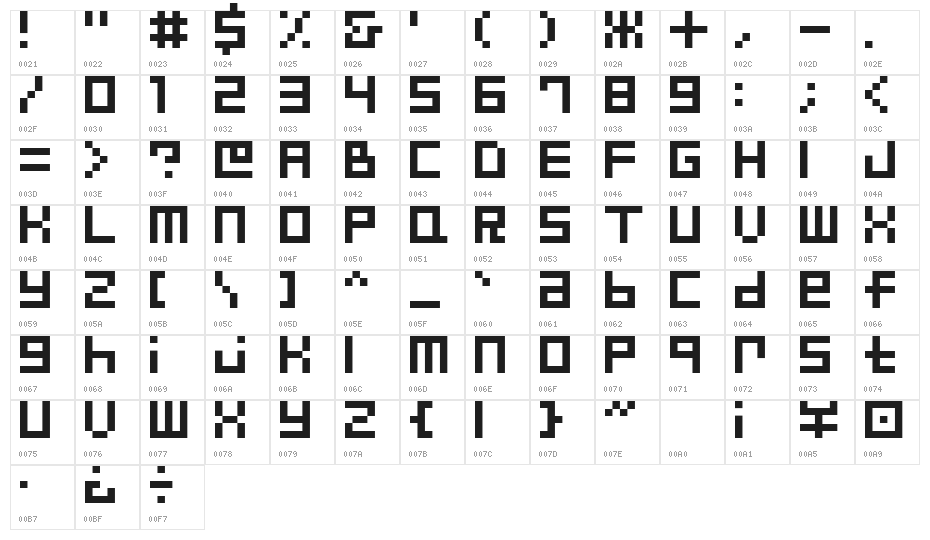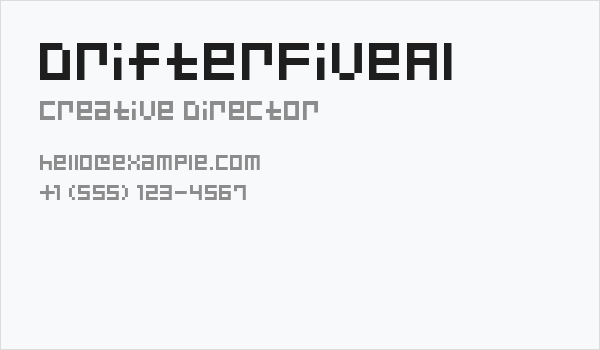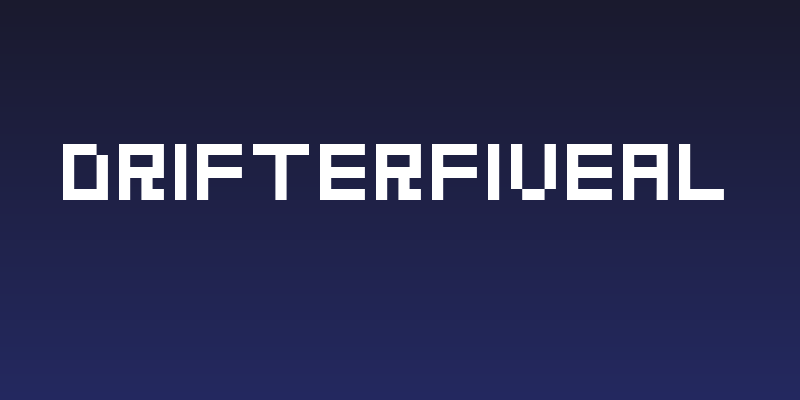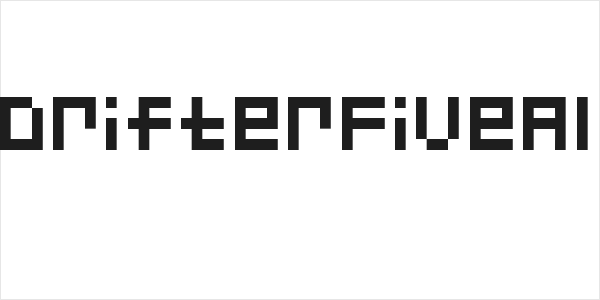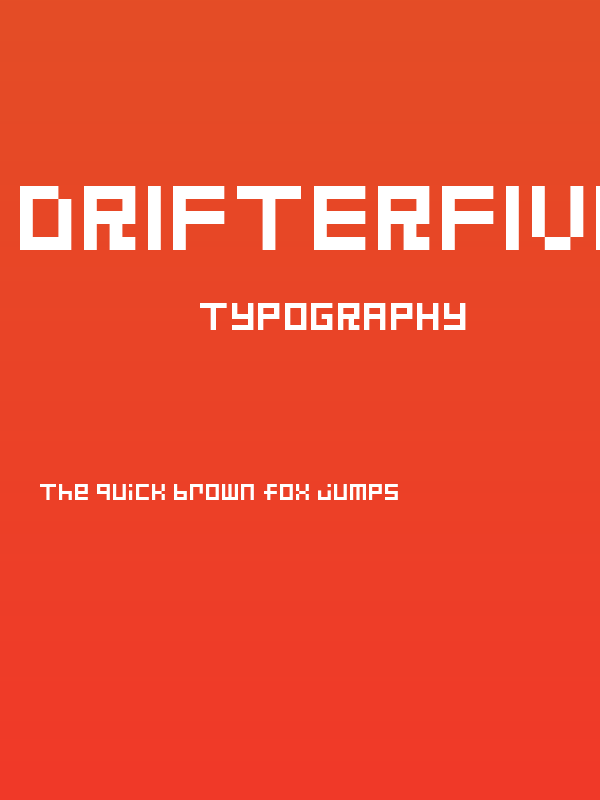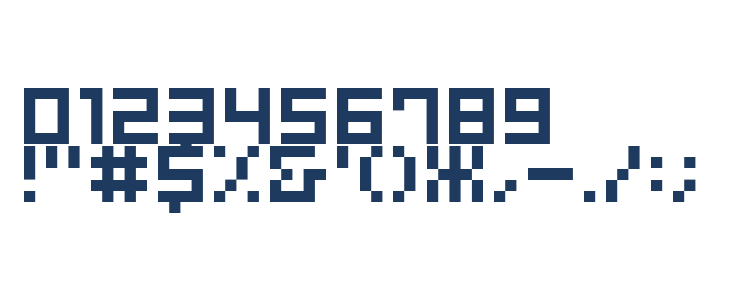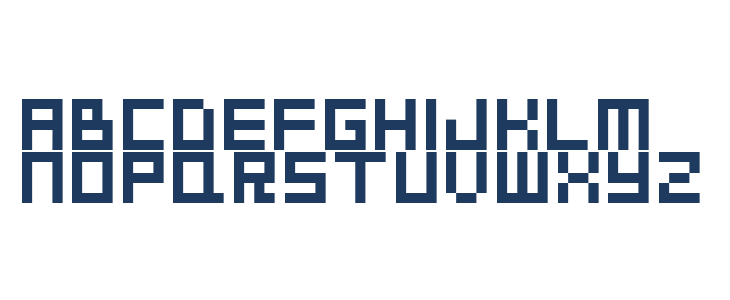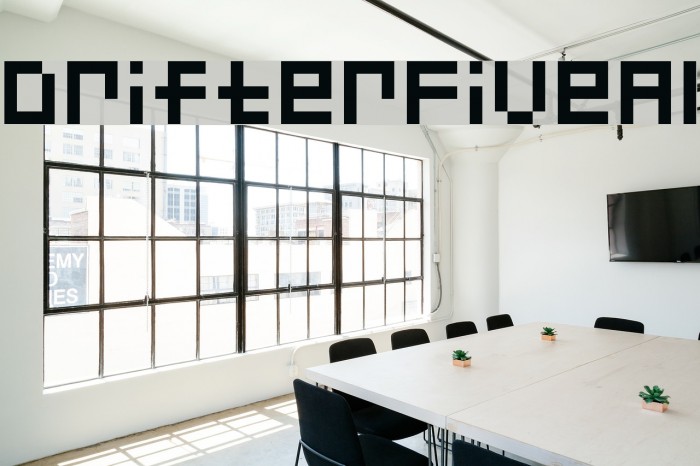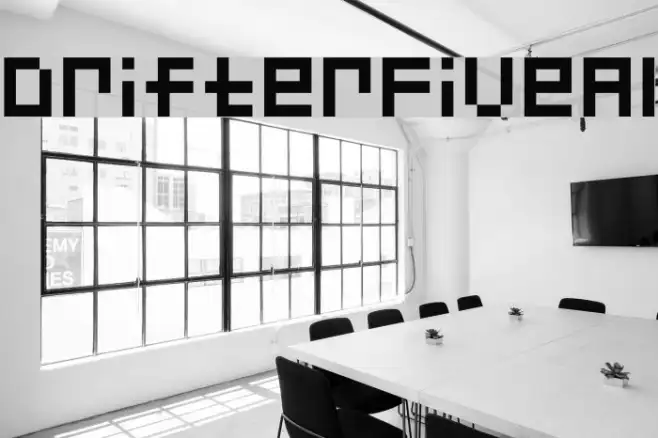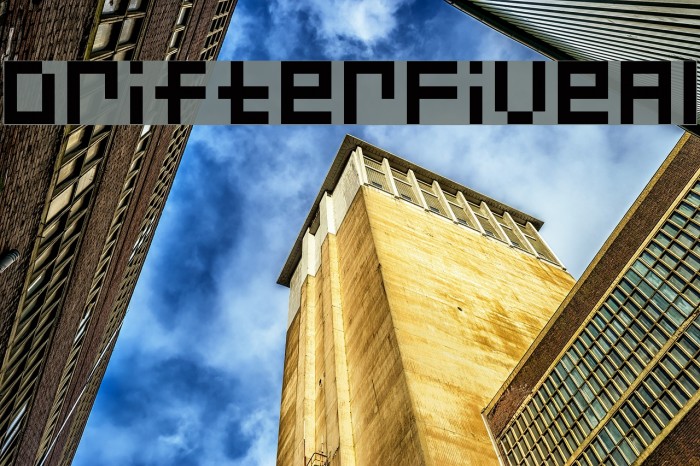
DrifterFiveAl Font
DrifterFiveAl Description
This font features a bold, geometric design with a distinctly digital and futuristic aesthetic. Each character is constructed with sharp, angular lines and uniform stroke widths, creating a cohesive and structured appearance. The uppercase and lowercase letters maintain a consistent height, enhancing readability and uniformity. The numerals and special characters are designed to match the overall style, ensuring a seamless integration across different uses. The font's pixelated look is reminiscent of early digital displays, making it ideal for projects that require a retro or tech-inspired theme.
| Overall Style | Futuristic, Digital |
| Use Case | Logos, Headlines, Digital displays |
| Proposed Projects | Ideal for video game graphics, tech branding, digital art projects, and retro-themed designs. |